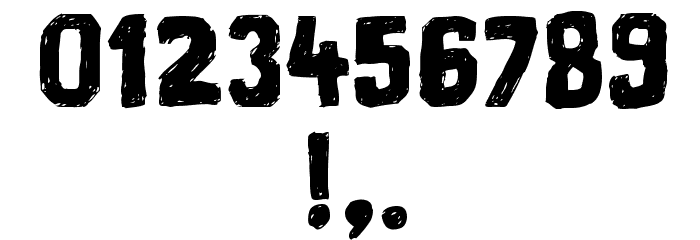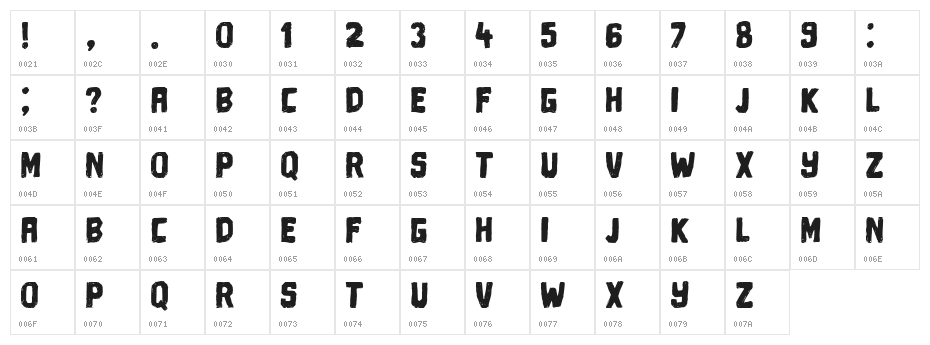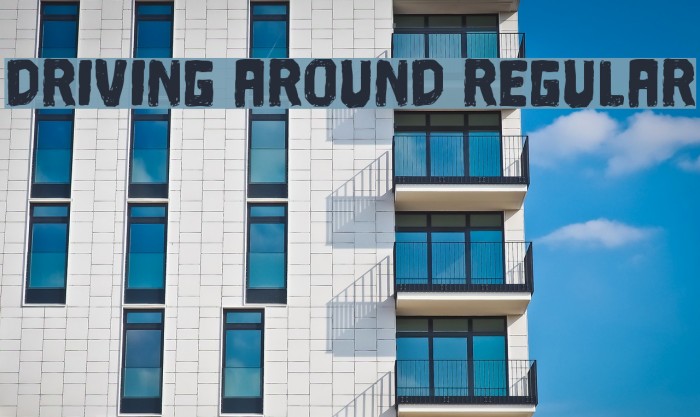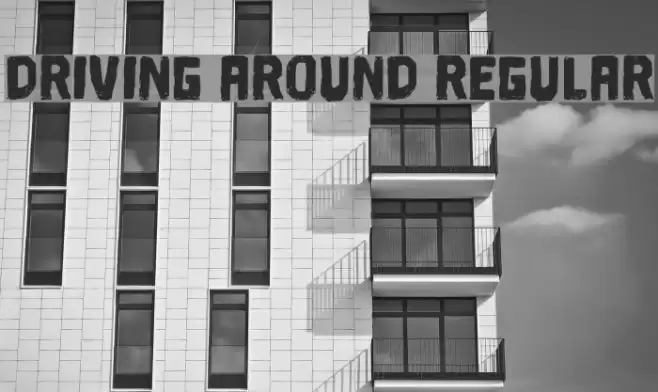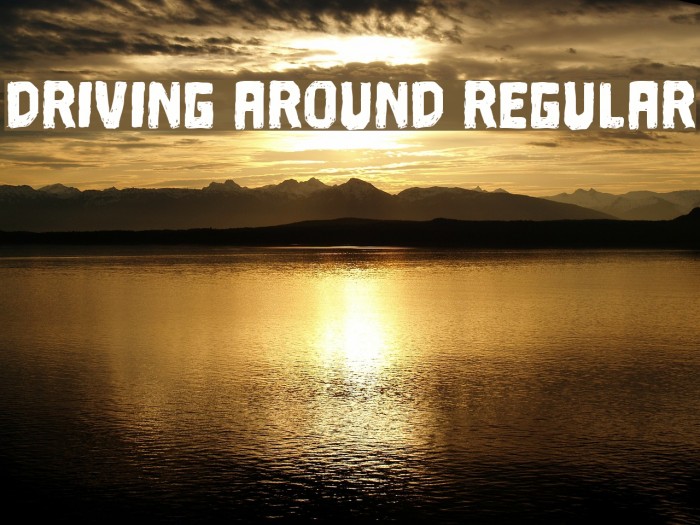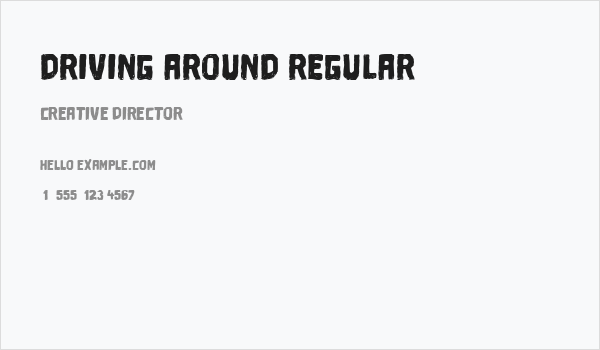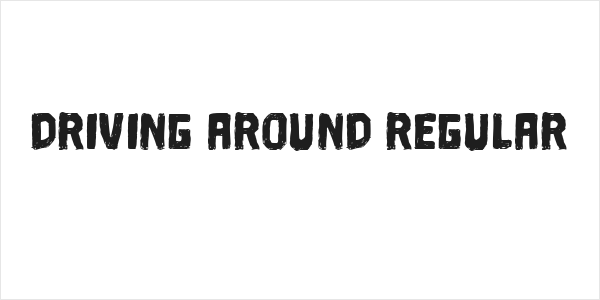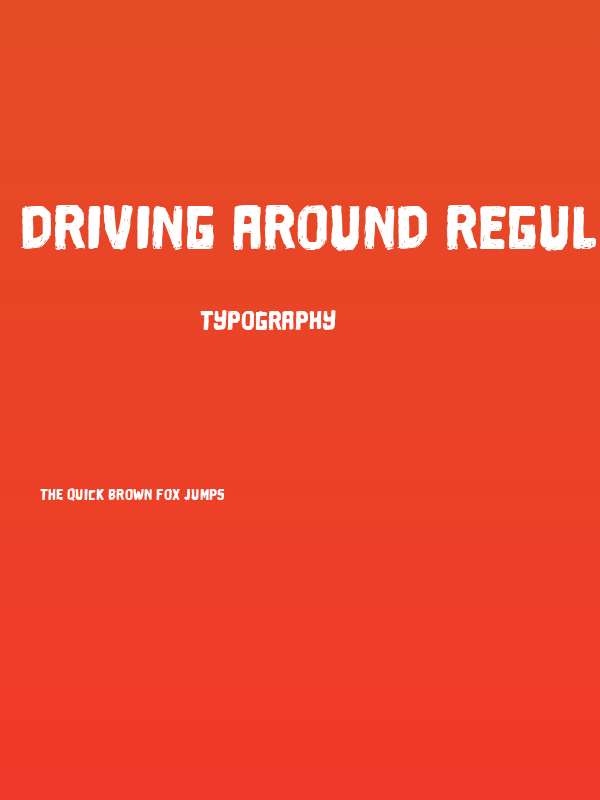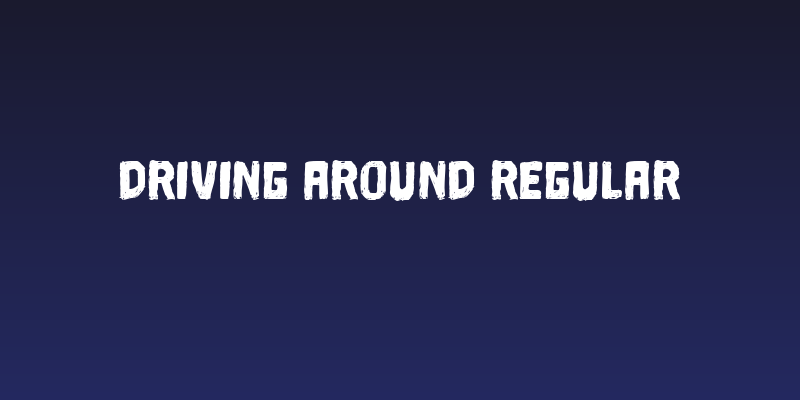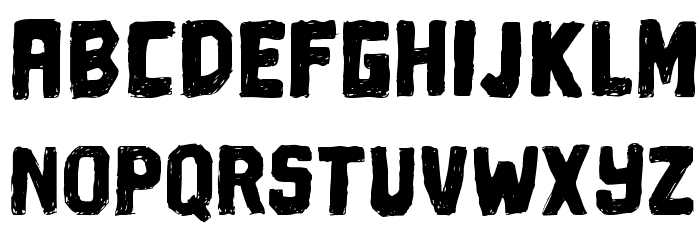
Driving Around Regular Font
Driving Around Regular Description
This font features a bold, rugged style with a hand-drawn appearance. The characters have a distressed texture, giving them a rough, organic feel. The uppercase letters are uniform in height, while the numbers and punctuation maintain the same textured look. The font's design is reminiscent of chalk or brush strokes, adding a casual and artistic vibe. It is highly legible, making it suitable for impactful headlines or creative projects where a bold statement is needed. The unique texture adds depth and character, making it stand out in various design contexts.
| Proposed Projects | Ideal for posters, branding, packaging, and any project needing a bold, artistic touch. |